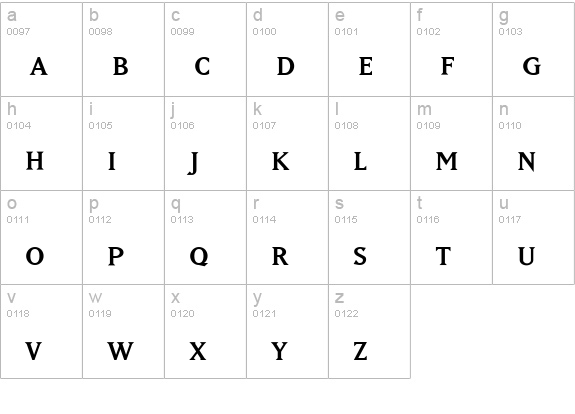
MatrixSmallCaps Font Details
Introducing MatrixSmallCaps, a stylish and modern font that brings a touch of sophistication to your designs. With its sleek lines and unique small caps design, MatrixSmallCaps is perfect for adding a touch of elegance to any project. Whether you're creating logos, branding materials, or marketing collateral, this versatile font is sure to make a statement. What's even better is that MatrixSmallCaps is available for free download at FontsMarket.com. That's right, you can elevate your designs with this premium font at no cost. Don't miss out on the opportunity to enhance your work with the sleek and professional look of MatrixSmallCaps. Download it today and take your designs to the next level!